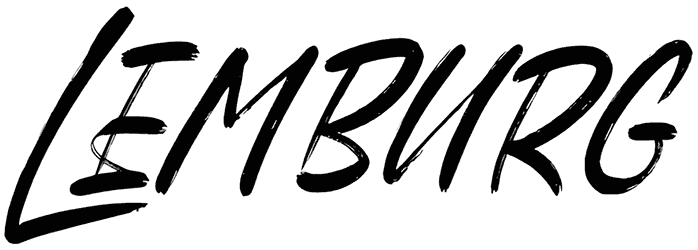
Lemburg Font
Lemburg font, in the company of thick and chunky letters, is delighted to demonstrate its best in designing any posters, greeting cards, flyers, invitations, and anywhere you need hand-drawn effects with its organic and natural feel.
Lemburg is a script brush font that can help you express your festive feelings in your artwork. Even though it lacks lowercase letters, it’s not a significant problem, so give it a shot and share a nice mood. Check out RB to find out more.
“Lemburg” is a font display is made by hand, inspired by classic posters.
comes with uppercase, lowercase, numerals, punctuations and so many variations on each character include OpenType alternates, common ligatures and also additional swash to let you customize your designs. Perfect to use for Logotype, Letterhead, Poster, Apparel Design, Label and etc.